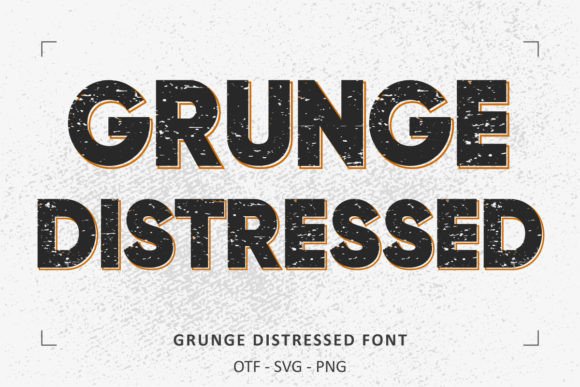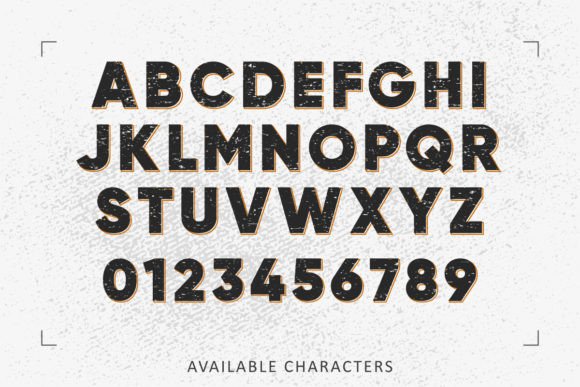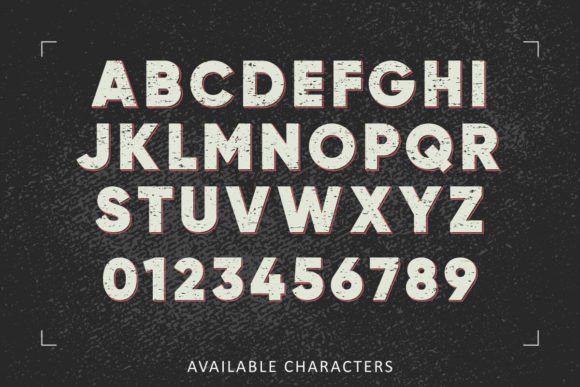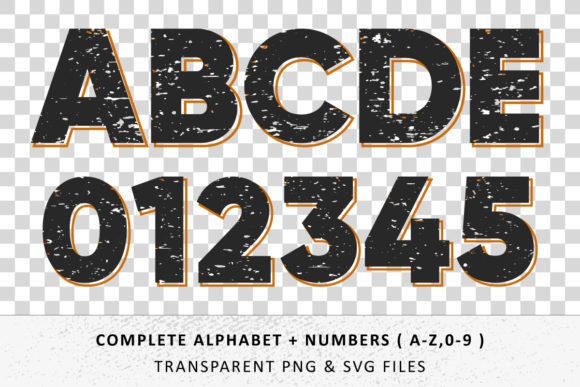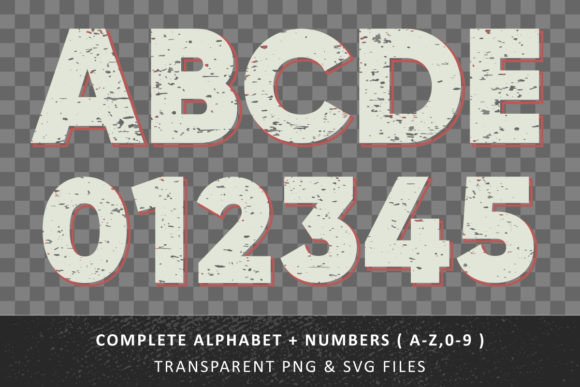
The Perfect Blend of Vintage Charm and Edgy Grunge
Remember the thrill of rummaging through your grandfather’s attic, discovering old records and dusty vinyls that spoke of a bygone era? It’s that same nostalgic feeling that designers crave when working on a project. The search for the perfect font that captures the essence of the past, yet exudes a modern vibe, is an eternal quest.
Enter the Grunge Distressed Font – a beautifully crafted display font that seamlessly blends vintage charm with edgy grunge. This font is perfect for adding a touch of raw emotion to your designs, from logos and posters to websites and T-shirts. Its distressed texture and rough-around-the-edges aesthetic make it a valuable addition to any designer’s toolkit.
Grunge Distressed Font Key Features
- Unique Characteristics: The Grunge Distressed Font features a distressed, worn-out appearance, with textures and imperfections that give it a vintage, edgy feel.
- Characters and Glyphs: The font includes a wide range of characters and glyphs, including international characters, punctuation, and symbols, making it suitable for a variety of design projects.
Grunge Distressed Font Review
At first glance, the Grunge Distressed Font has a certain charm to it ✨. The unique, weathered look can add a touch of edginess to designs, making it perfect for music festivals, streetwear brands, or any other project that wants to convey a laid-back vibe. The font’s irregularities also make it stand out from more traditional sans-serif fonts, giving it a distinctive character.
The font’s versatility is another plus ✨. It can be used for headings, titles, and even body text, depending on the desired level of grunge-iness. Additionally, the font is highly customizable, allowing designers to adjust the level of distressing to suit their project’s needs.
- ⚠️ Readability can be a concern, especially for longer blocks of text. The font’s irregularities can make it difficult to read at a glance.
- ⚠️ The font may not be suitable for projects that require a more professional or formal tone. The grunge look can come across as unpolished or even amateurish in some cases.
- ⚠️ Some users may find the font’s distressed look to be overused or clichéd, which can negatively impact its effectiveness.
Overall, the Grunge Distressed Font is a great choice for designers who want to add a touch of edginess to their projects ✨. While it may have some limitations, its unique look and versatility make it a valuable addition to any designer’s toolkit.
The Grunge Distressed Font is perfect for:
- Music festival or concert posters.
- Rock band logos or merchandise.
- Edgy or alternative marketing campaigns.
- Grungy or vintage-themed designs.
Alternative Grunge Distressed Fonts
1. Rockwell
Rockwell is a slab serif font that can mimic the distressed look of Grunge Distressed Font. It has a rugged feel and is suitable for use in headings and titles. Rockwell is a better choice when you want a more refined and elegant distressed look, as opposed to the rough and edgy feel of Grunge Distressed Font.